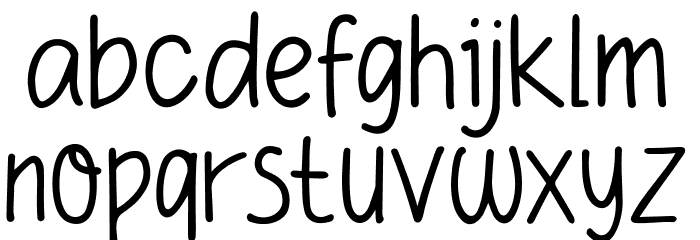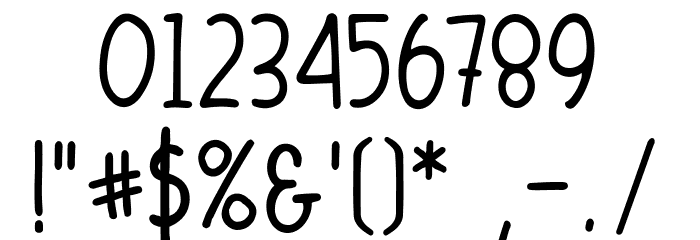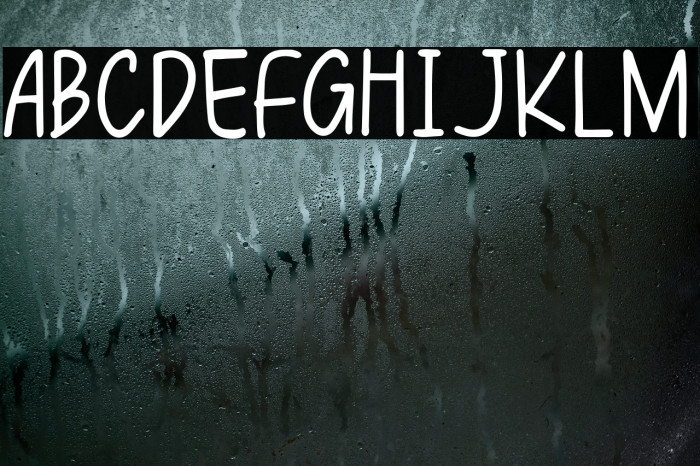
Funiko Font
This playful and friendly font features a handwritten style with smooth, rounded edges and a casual appearance. The letters are slightly irregular, giving it a natural and approachable feel. The uppercase and lowercase characters maintain a consistent height, contributing to its readability. The numerals and special characters are designed to match the overall aesthetic, ensuring a cohesive look across all text. This font is perfect for projects that require a personal touch, such as invitations, greeting cards, or children's books. Its informal style makes it suitable for conveying warmth and friendliness.
A playful, handwritten font with smooth, rounded edges and a casual, friendly appearance.
- Proposed Projects: Ideal for invitations, greeting cards, children's books, and any project needing a personal, friendly touch.
- Category: Handwritten
- Overall Style: Casual
- Use Case: Headlines, Informal text, Personal projects